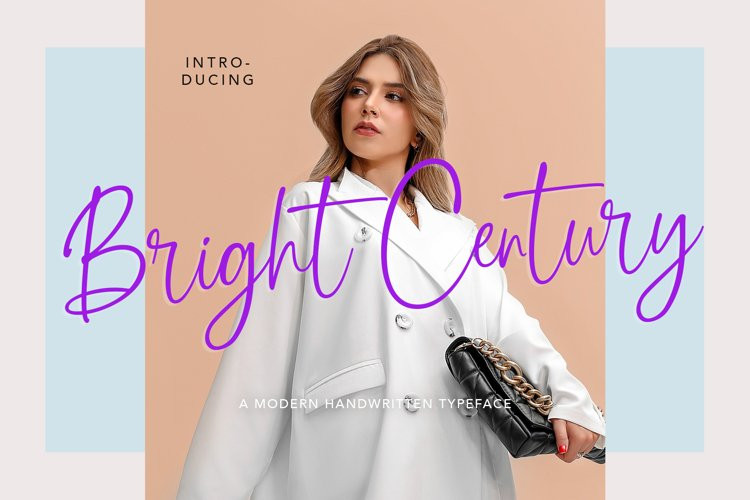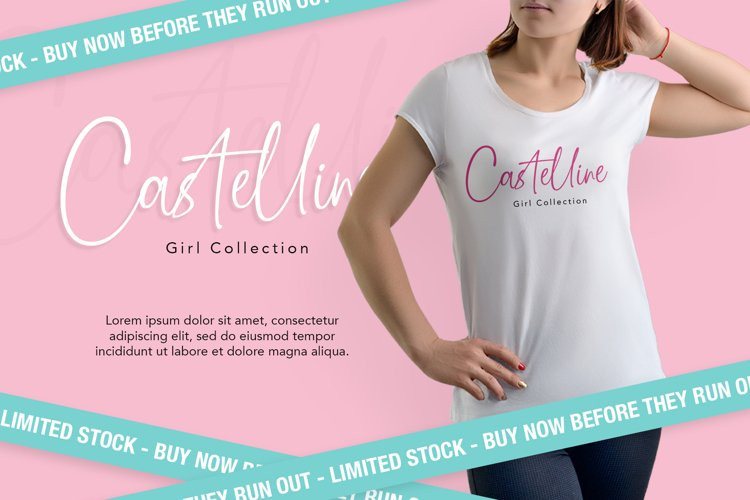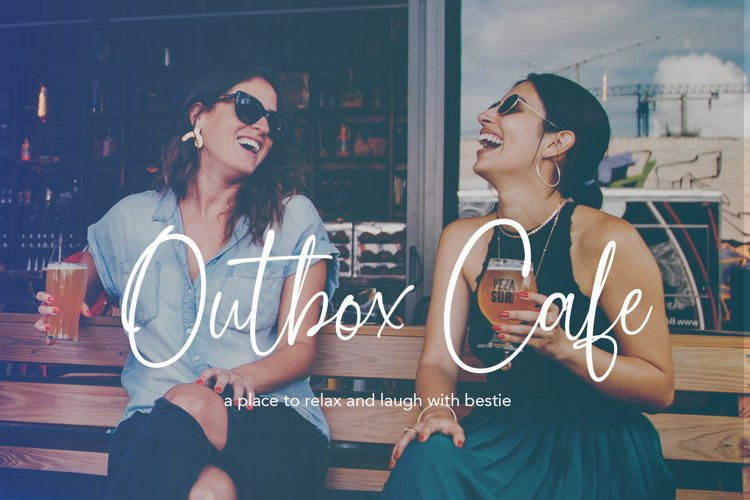
Bright Century Font
Bright Century FontIntroducing Bright Century Modern Script Hand-lettered Font.
With a soft style and has an elegant nuances, classy and natural. Perfect to get a more charismatic impression or unique touch to your projects and branding, greeting cards, wedding, banner, name card, lettering, fonts pairing, etc.